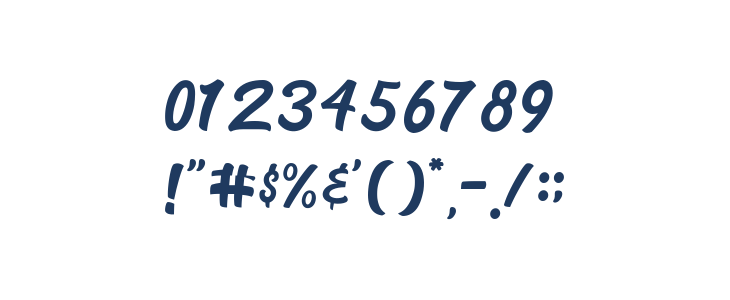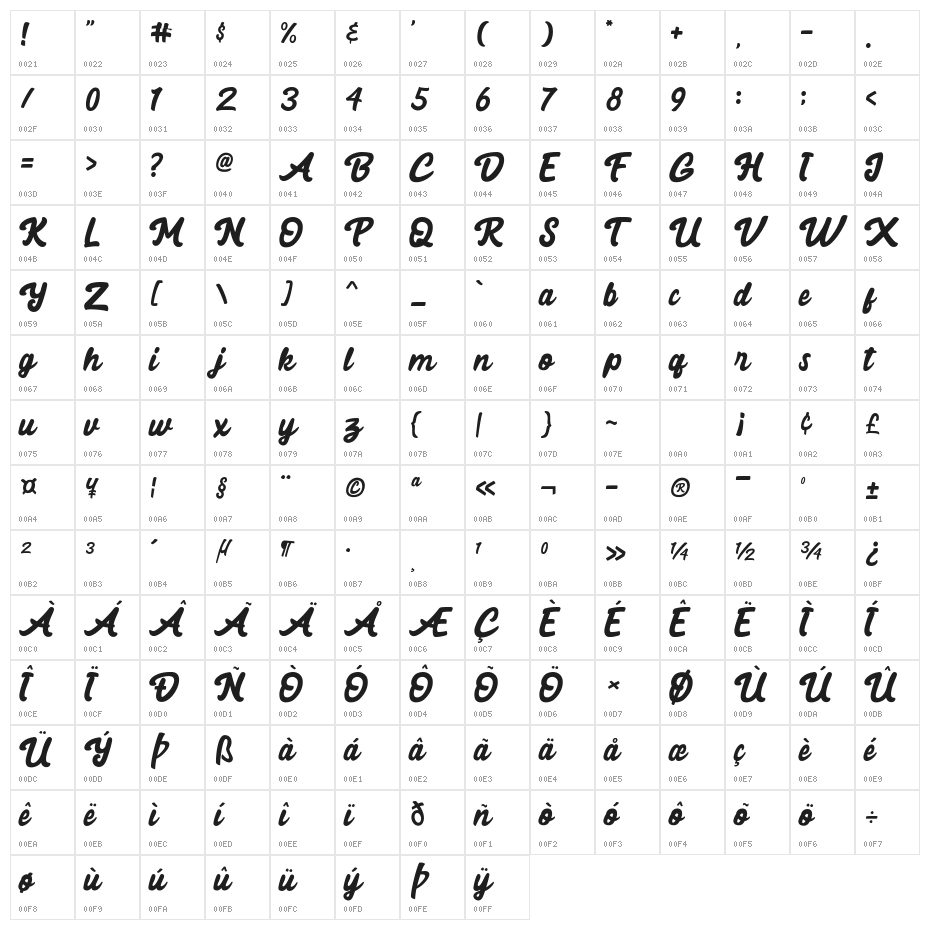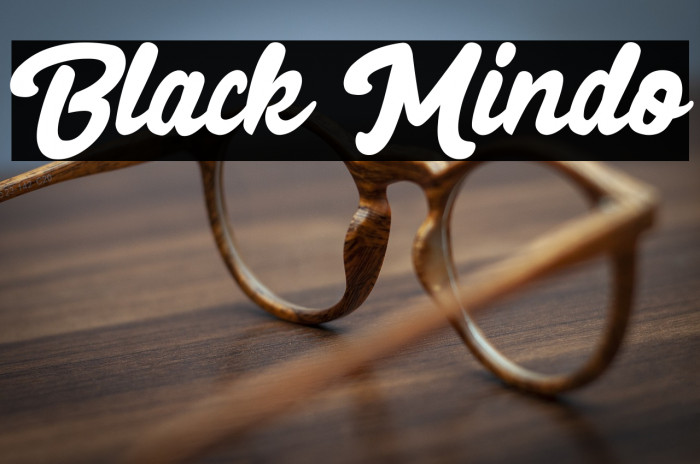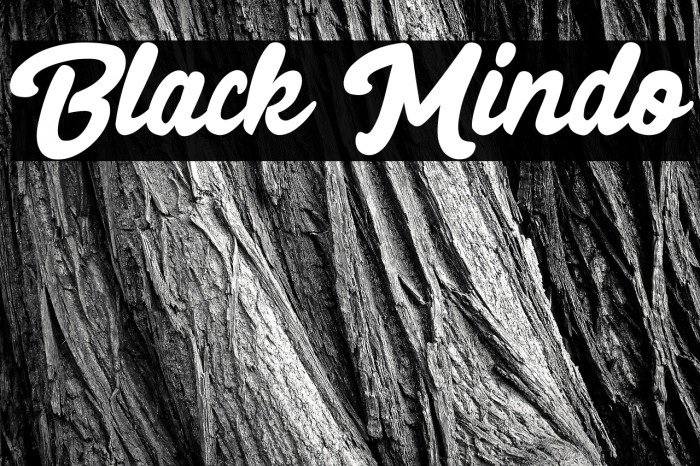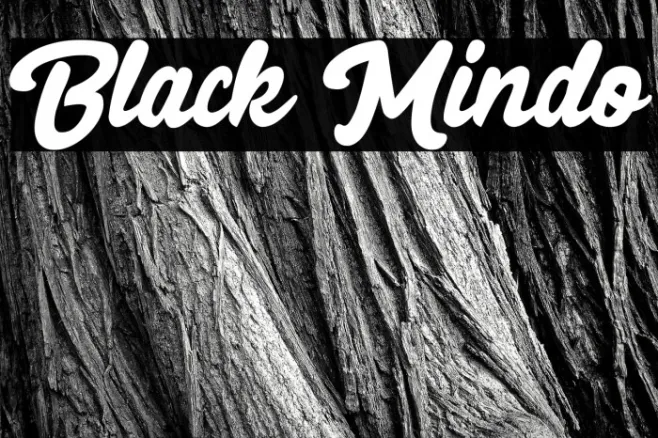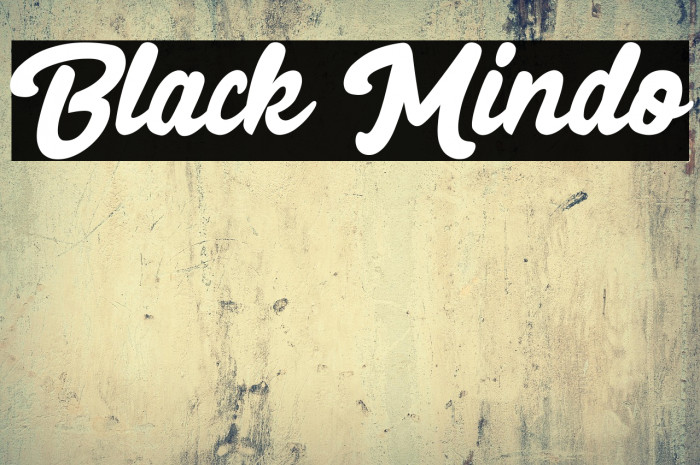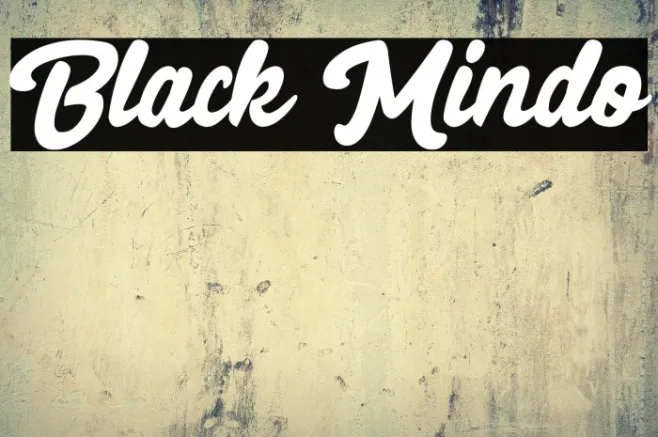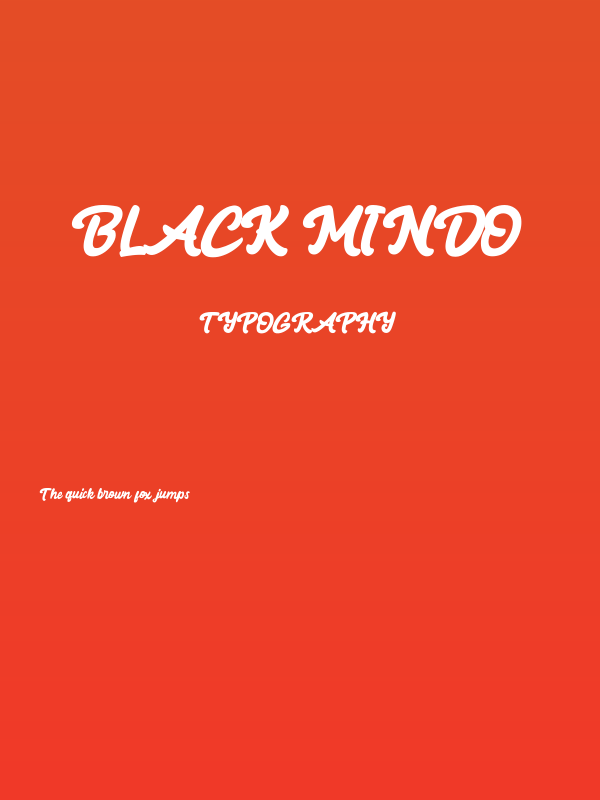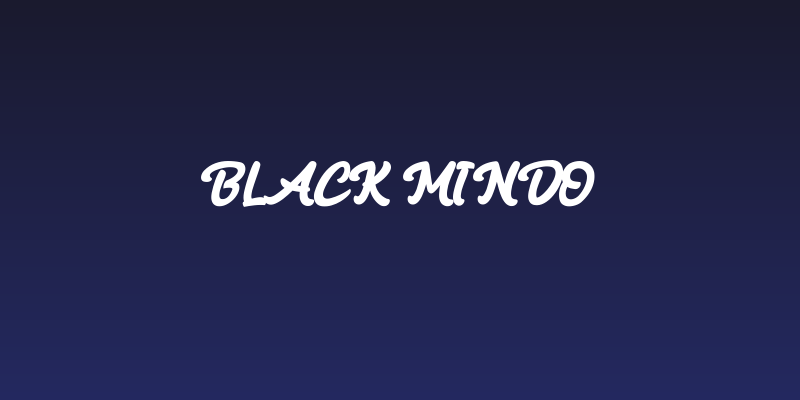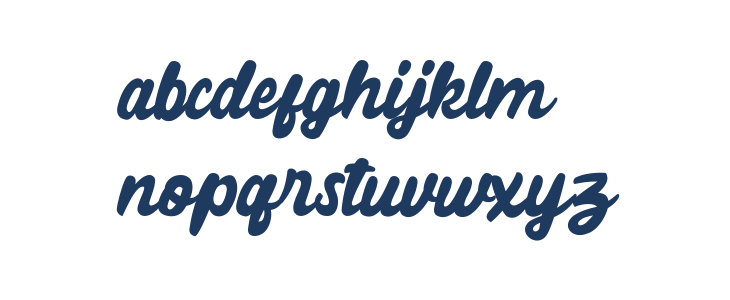
Black Mindo Font
Black Mindo Description
This font features a bold and dynamic script style, characterized by its fluid and connected letterforms. The uppercase letters are slightly larger and more pronounced, while the lowercase letters maintain a consistent flow, enhancing readability. The numerals are equally bold, matching the overall aesthetic of the alphabet. Special characters are designed with the same attention to detail, ensuring a cohesive look across all glyphs. The font's strokes are thick and uniform, providing a strong visual impact. Its playful yet sophisticated style makes it suitable for a variety of creative applications.